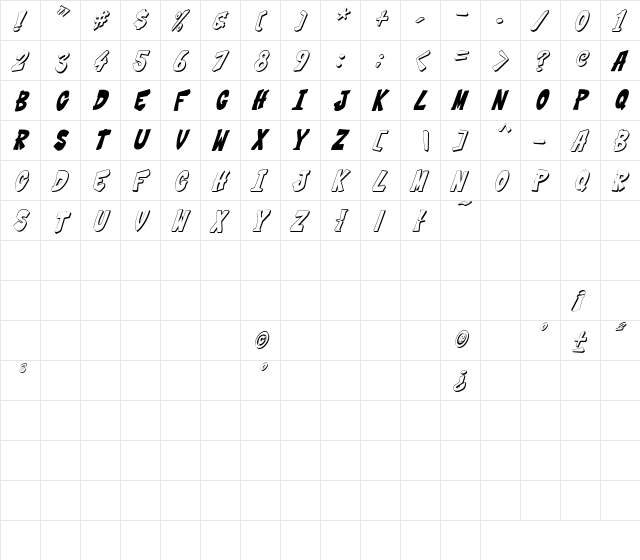
THWACK!!! THWACK!!!
| Designer | Jim Kalogiratos |
Design Context for THWACK!!! Typeface
THWACK!!! is a composed and adaptable typeface that performs quietly and consistently across a wide range of design contexts.